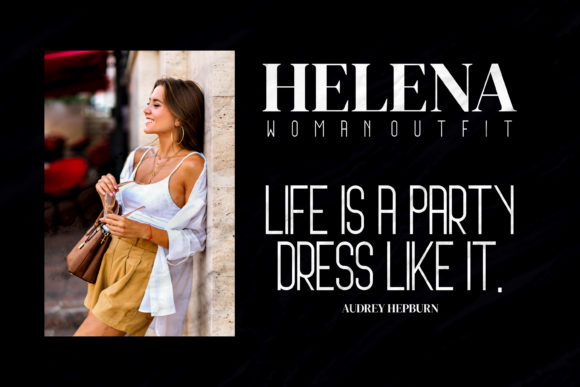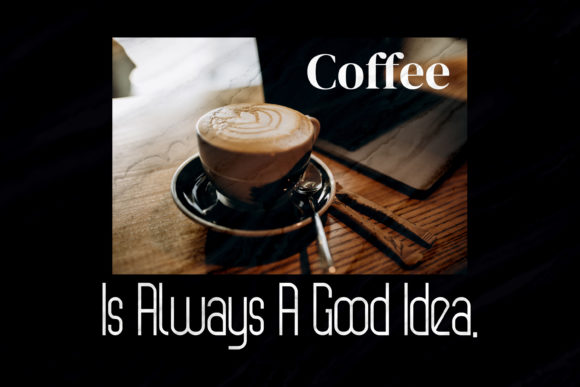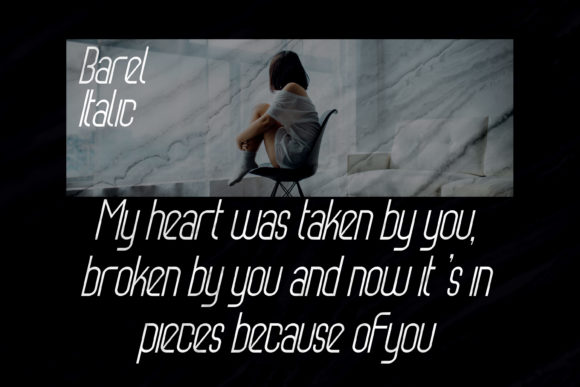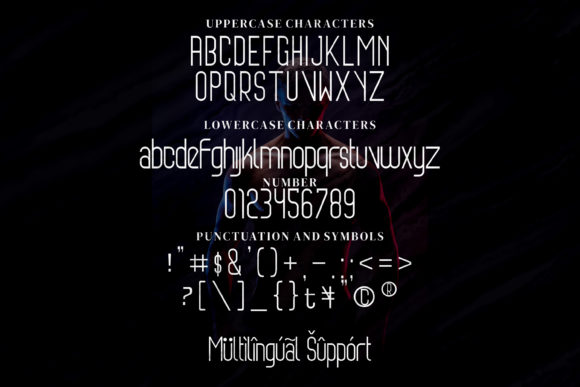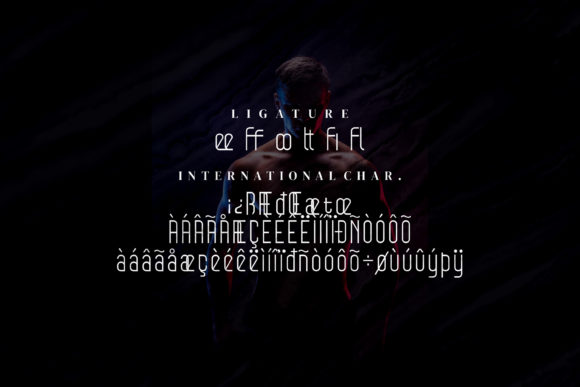
Barel Font: The Ultimate Minimal and Thin Lettered Sans Serif Font for Designers and Crafters
In the world of typography, a good font can make all the difference in the success of a design project. Whether you’re a professional designer or a crafter, finding the right font can be a daunting task. However, if you’re looking for a font that is both minimal and versatile, look no further than Barel Font. In this article, we’ll explore the features and benefits of Barel Font, and why it’s a must-have for any designer or crafter.
What is Barel Font?
Barel Font is a minimal and thin lettered sans serif font that is perfect for designers and crafters who want to add a touch of elegance and sophistication to their projects. Its clean and simple design makes it easy to read and versatile enough to be used in a wide range of applications, from logos and branding to signage and packaging.
Key Features of Barel Font
- Minimal and Thin Design: Barel Font features a minimalist design with thin lines and simple shapes, making it perfect for designers and crafters who want to create clean and elegant designs.
- Sans Serif: The font is sans serif, which means it doesn’t have any decorative lines or flourishes, making it easy to read and versatile enough to be used in a wide range of applications.
- Highly Legible: Despite its thin design, Barel Font is highly legible, even at small sizes, making it perfect for use in body text and captions.
- Wide Range of Applications: Barel Font can be used in a wide range of applications, from logos and branding to signage and packaging, making it a versatile addition to any designer’s or crafter’s toolkit.
Benefits of Using Barel Font
So why should you choose Barel Font for your next design project? Here are just a few benefits of using this versatile font:
- Elegant and Sophisticated: Barel Font adds a touch of elegance and sophistication to any design project, making it perfect for designers and crafters who want to create high-end designs.
- Versatile: The font’s clean and simple design makes it versatile enough to be used in a wide range of applications, from logos and branding to signage and packaging.
- Easy to Read: Barel Font is highly legible, even at small sizes, making it perfect for use in body text and captions.
- Time-Saving: With Barel Font, you can create professional-looking designs in no time, saving you time and effort.
How to Use Barel Font in Your Design Projects
Using Barel Font in your design projects is easy. Here are a few tips to get you started:
- Pair it with Other Fonts: Barel Font pairs well with other fonts, so feel free to experiment with different combinations to create a unique look.
- Use it for Headings and Titles: Barel Font is perfect for use in headings and titles, where its elegant and sophisticated design can really shine.
- Experiment with Different Sizes: Barel Font is highly legible, even at small sizes, so don’t be afraid to experiment with different sizes to create visual interest.
In conclusion, Barel Font is a must-have for any designer or crafter looking to add a touch of elegance and sophistication to their design projects. Its minimal and thin design, highly legible and versatile, making it perfect for use in a wide range of applications. With Barel Font, you can create professional-looking designs in no time, saving you time and effort. So why wait? Download Barel Font today and take your design projects to the next level!